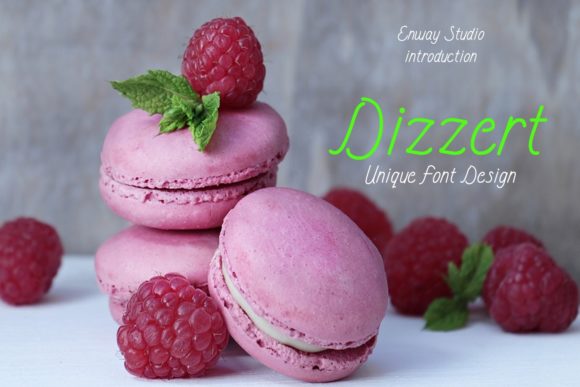
Dizzert Font: Add a Whimsical Touch to Your Design Projects
Are you looking for a font that can add a touch of whimsy and classic charm to your design projects? Look no further than the Dizzert Font. This attractive and cute script font is perfect for designers and crafters who want to create unique and eye-catching designs. In this article, we’ll take a closer look at the Dizzert Font, its features, and how you can use it to elevate your design projects.
What is Dizzert Font?
Dizzert Font is a script font that boasts a classic feel with a modern twist. Its attractive and cute design makes it perfect for a wide range of design projects, from invitations and greeting cards to branding and packaging. The font’s whimsical feel is sure to capture the attention of your audience and leave a lasting impression.
Key Features of Dizzert Font
- Classic Feel: The Dizzert Font has a classic feel that is reminiscent of traditional script fonts.
- Cute and Attractive: The font’s cute and attractive design makes it perfect for designs that require a touch of whimsy.
- Script Style: The Dizzert Font is a script font that features connected letters, giving it a fluid and elegant look.
- Versatile: The font is versatile and can be used for a wide range of design projects, from digital designs to print materials.
How to Use Dizzert Font in Your Design Projects
The Dizzert Font can be used in a variety of design projects, including:
- Invitations: Use the Dizzert Font to create beautiful and elegant invitations for weddings, parties, and other special occasions.
- Greeting Cards: Add a touch of whimsy to your greeting cards with the Dizzert Font.
- Branding: Use the font to create unique and eye-catching branding materials, such as logos and business cards.
- Packaging: The Dizzert Font is perfect for packaging designs that require a touch of elegance and sophistication.
Tips for Using Dizzert Font
- Pair it with Other Fonts: Pair the Dizzert Font with other fonts to create a unique and visually appealing design.
- Use it for Headings: Use the Dizzert Font for headings and titles to add a touch of elegance and sophistication.
- Experiment with Colors: Experiment with different colors to find the perfect combination that works with the Dizzert Font.
The Dizzert Font is a beautiful and versatile script font that can add a touch of whimsy and classic charm to your design projects. Its attractive and cute design makes it perfect for a wide range of designs, from invitations and greeting cards to branding and packaging. With its classic feel and modern twist, the Dizzert Font is sure to become a favorite among designers and crafters.
- What type of font is Dizzert Font? The Dizzert Font is a script font.